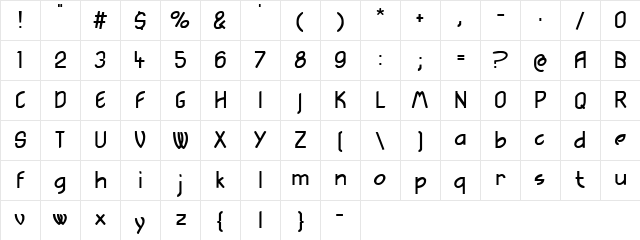
SarahBernhardt Regular
Design Context for SarahBernhardt Typeface
SarahBernhardt is a composed and adaptable typeface that performs quietly and consistently across a wide range of design contexts.